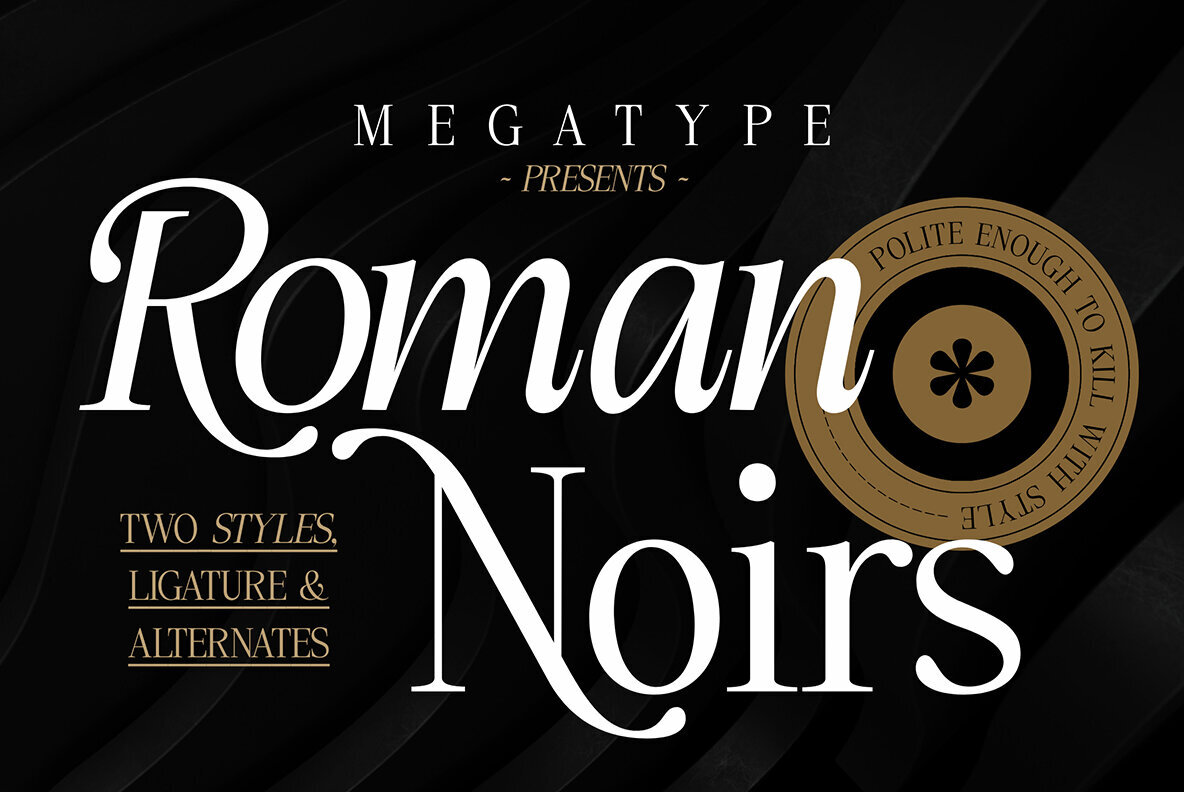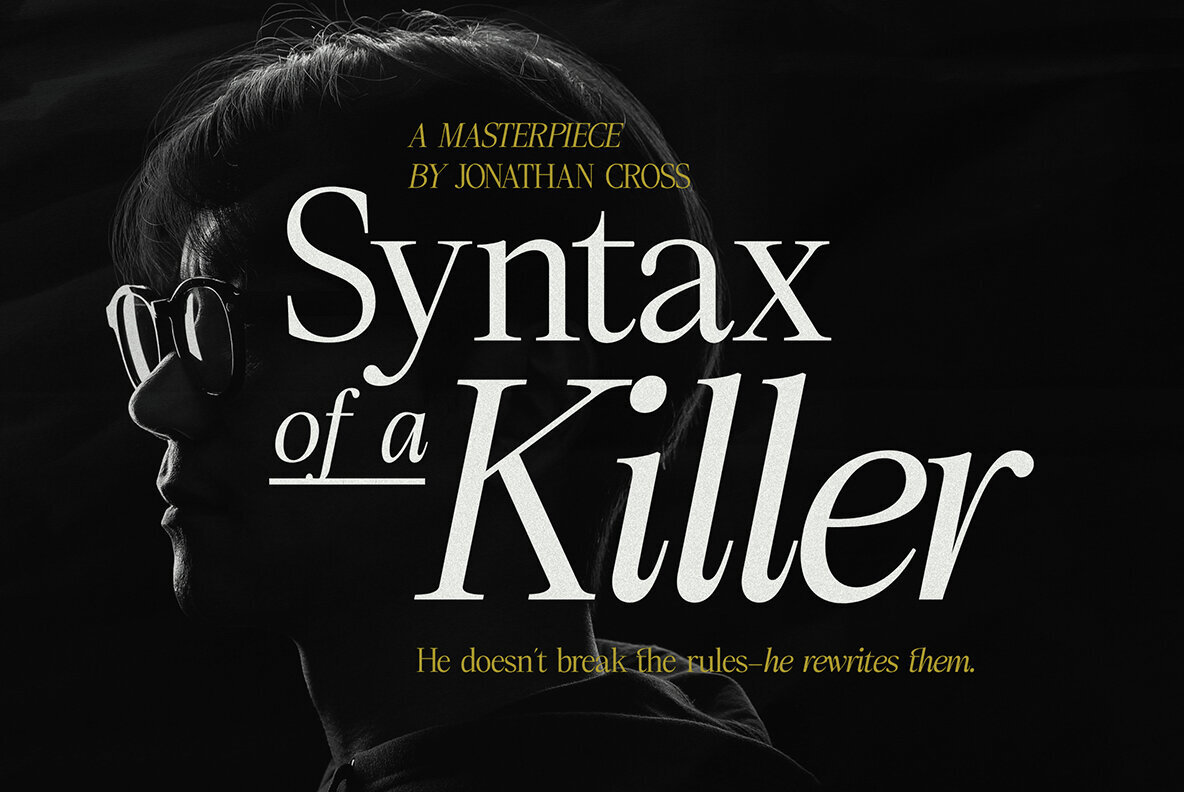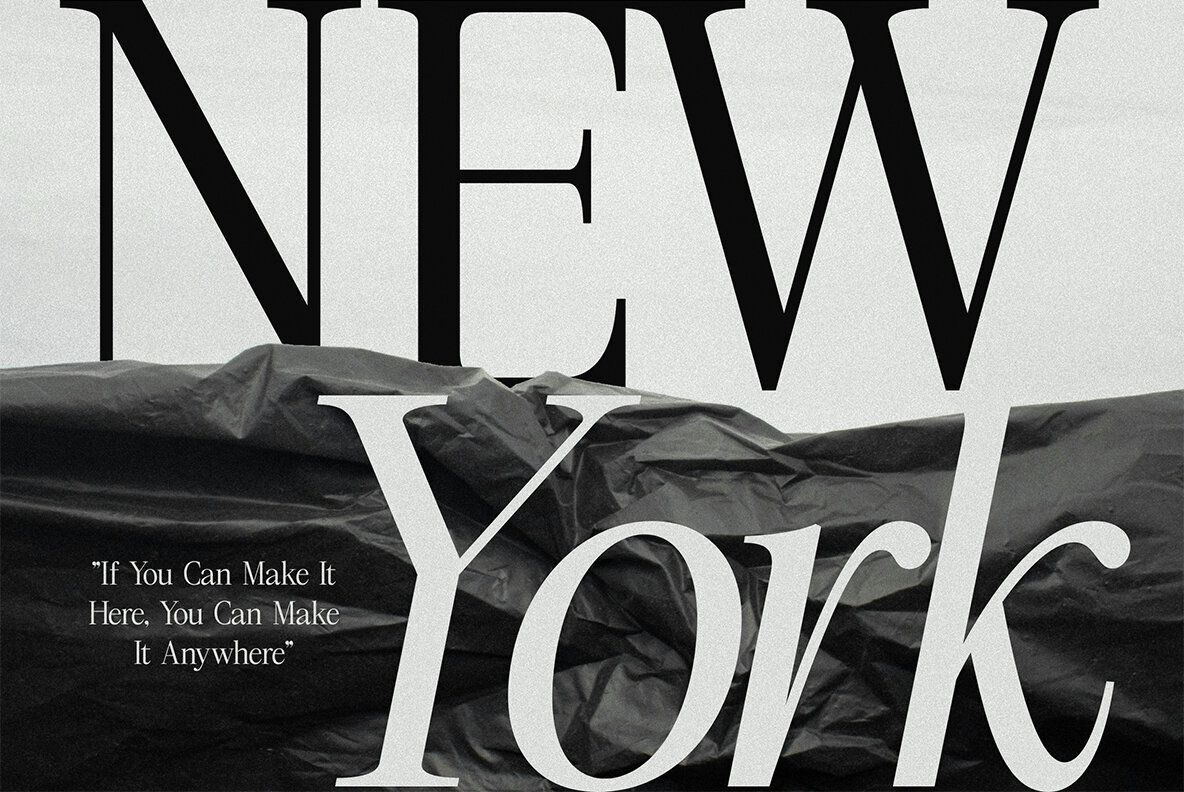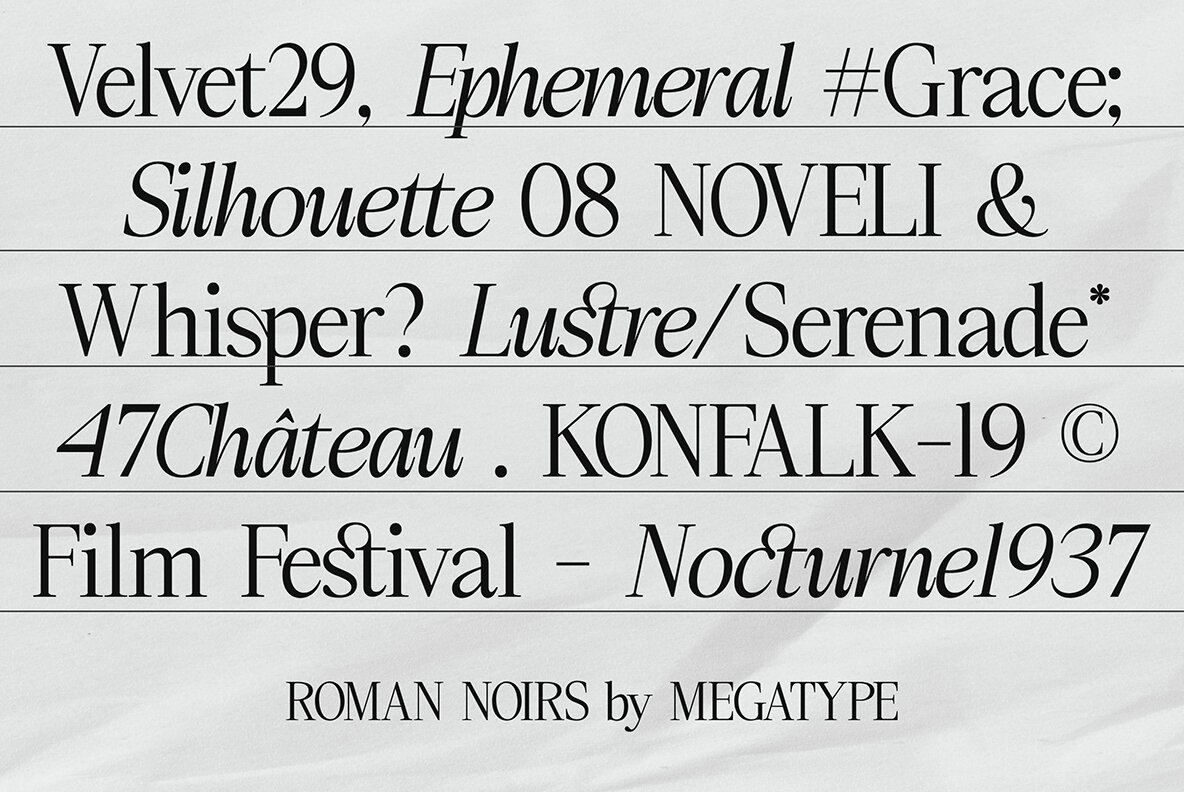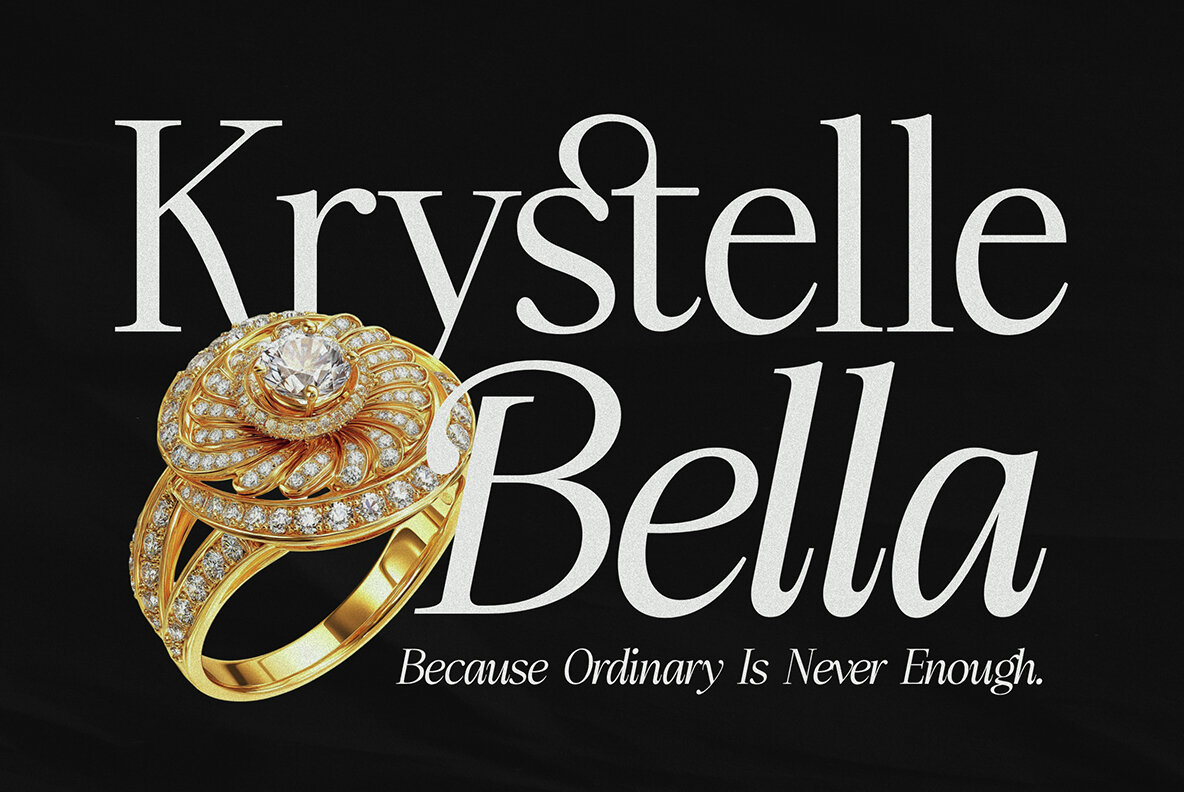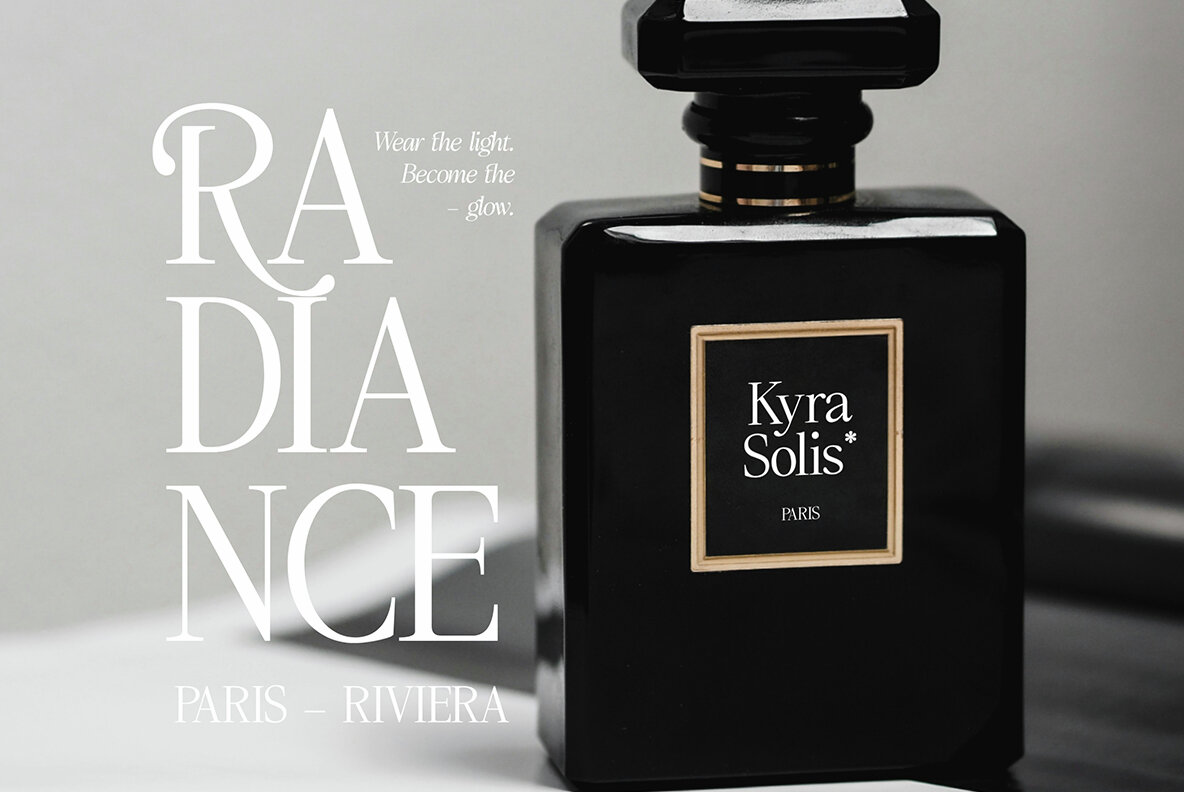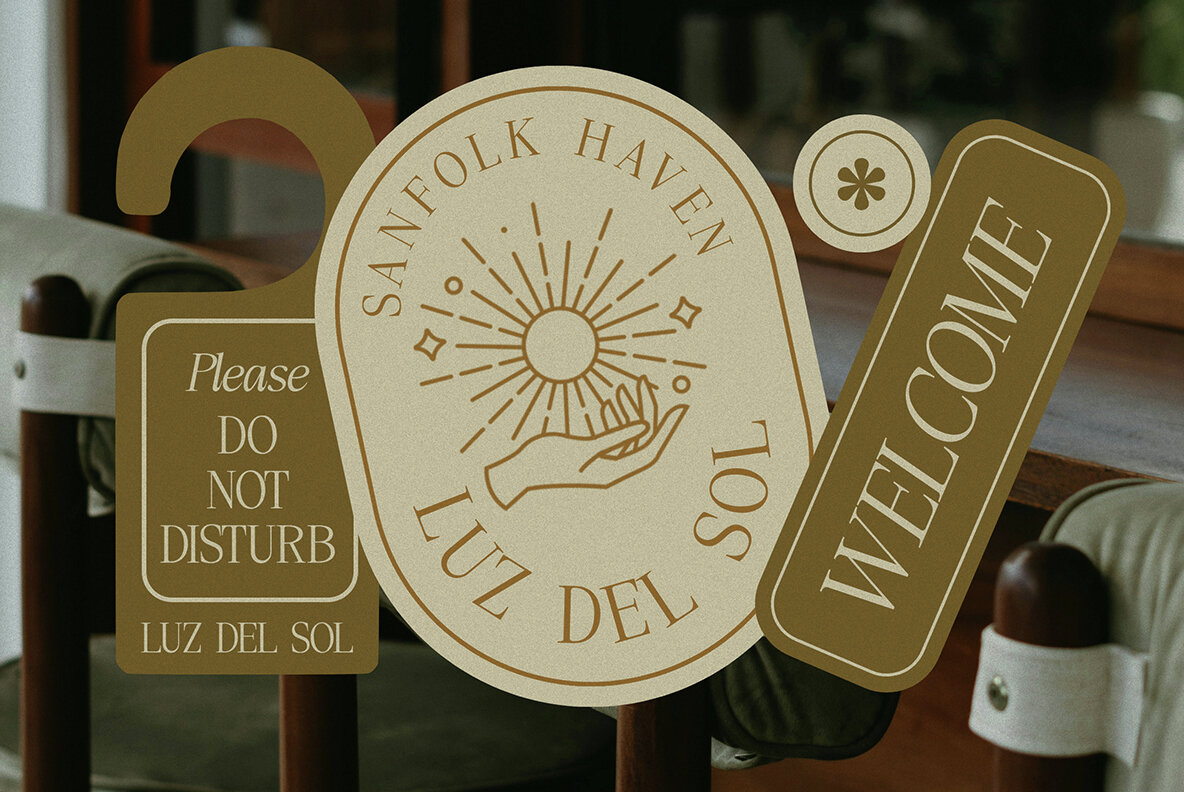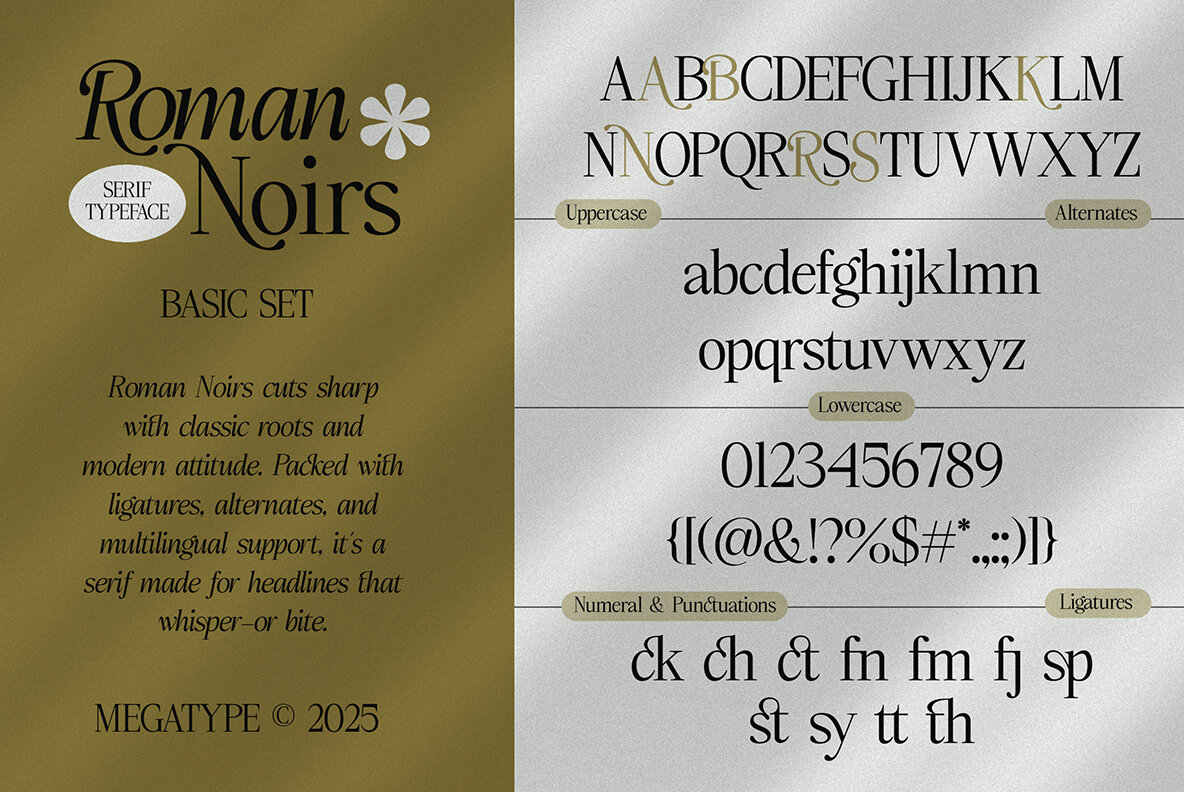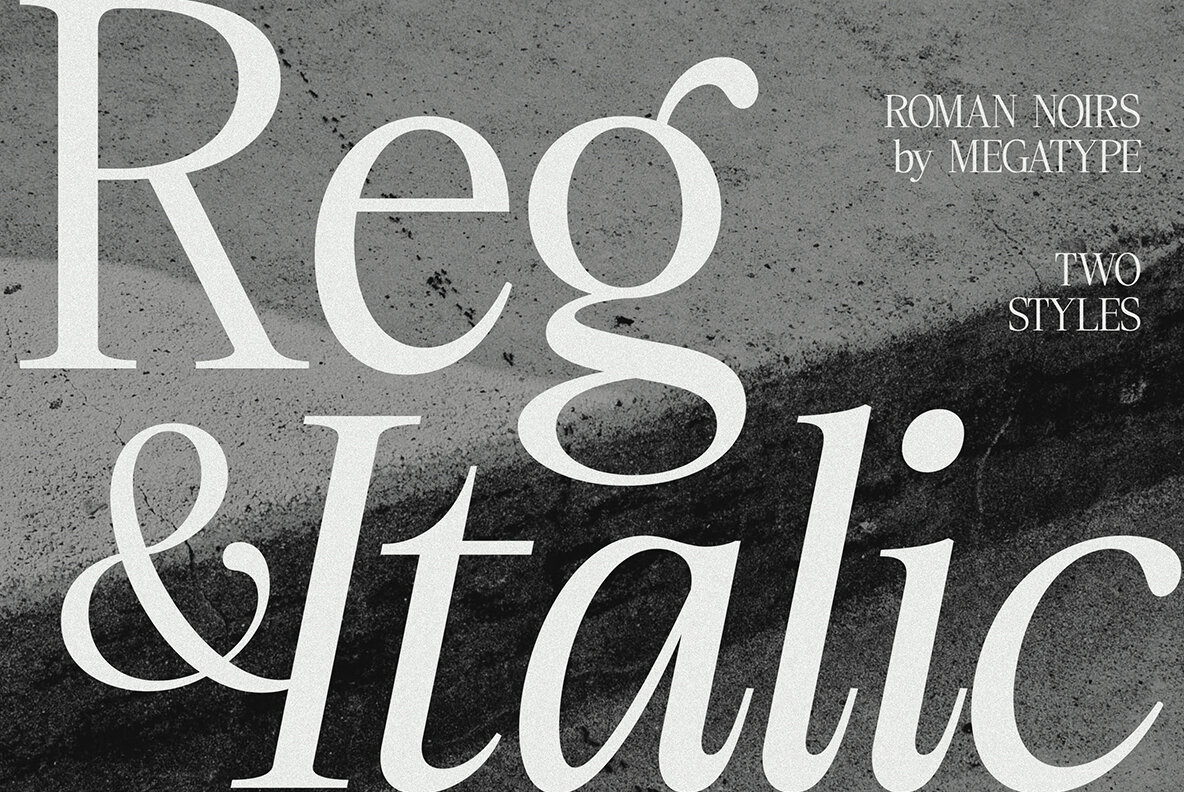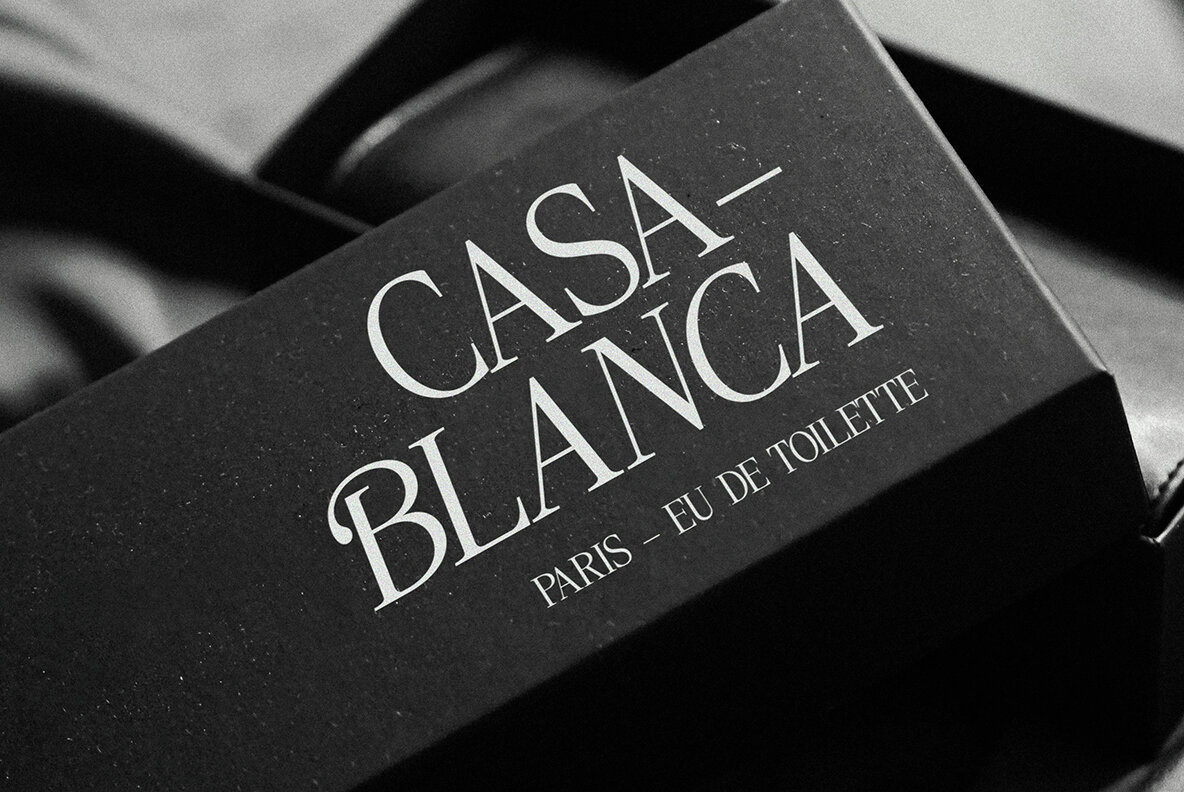
Roman Noirs Font
Roman Noirs is a sophisticated serif font that merges vintage charm with a contemporary edge. Featuring both Regular and Italic styles, this high-contrast serif design showcases sharp transitions and fluid curves, exuding the elegance of classical Roman fonts while integrating modern accents through expressive alternates and smart ligatures. A perfect choice for designers seeking to make a bold statement, Roman Noirs excels in creating eye-catching headlines. It’s ideal for editorial design, fashion branding, book covers, posters, packaging, logos, and identity systems. Whether your project demands a subtle whisper or a bold declaration, Roman Noirs speaks volumes with its dramatic, timeless class, bringing a distinctive touch to any design endeavor.Roman Noirs: Timeless Elegance Meets Modern Flair
Features and Versatility